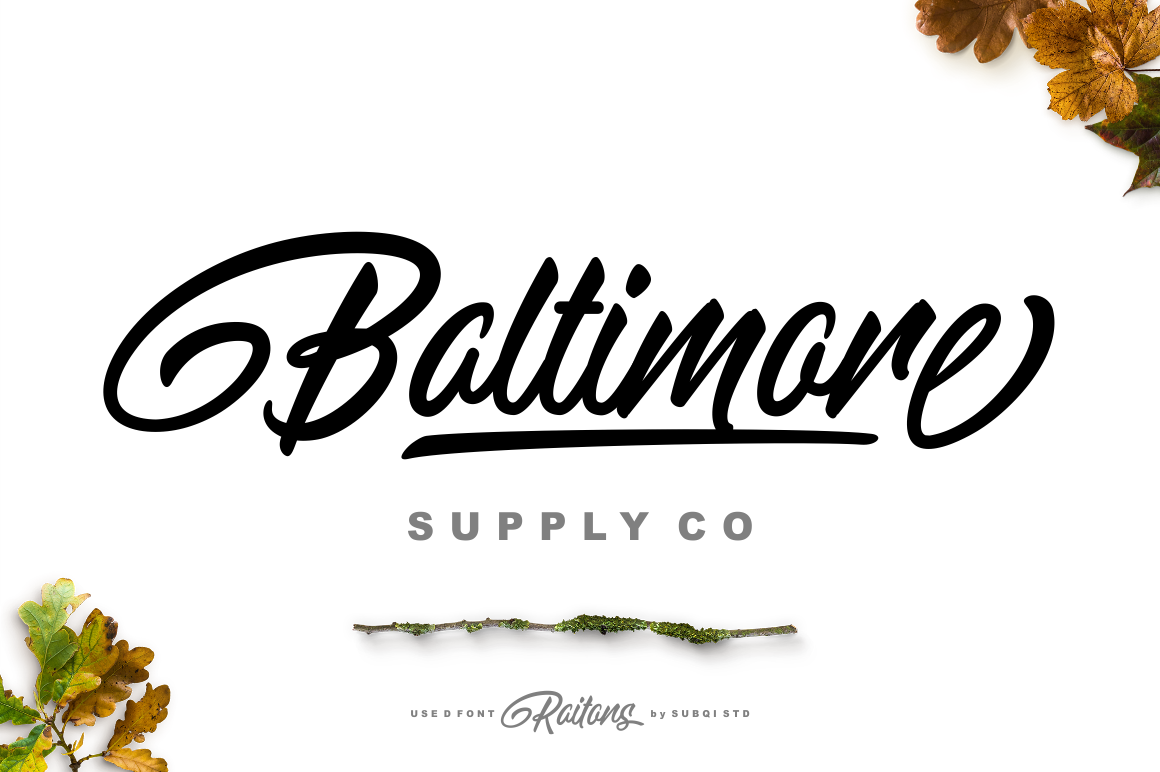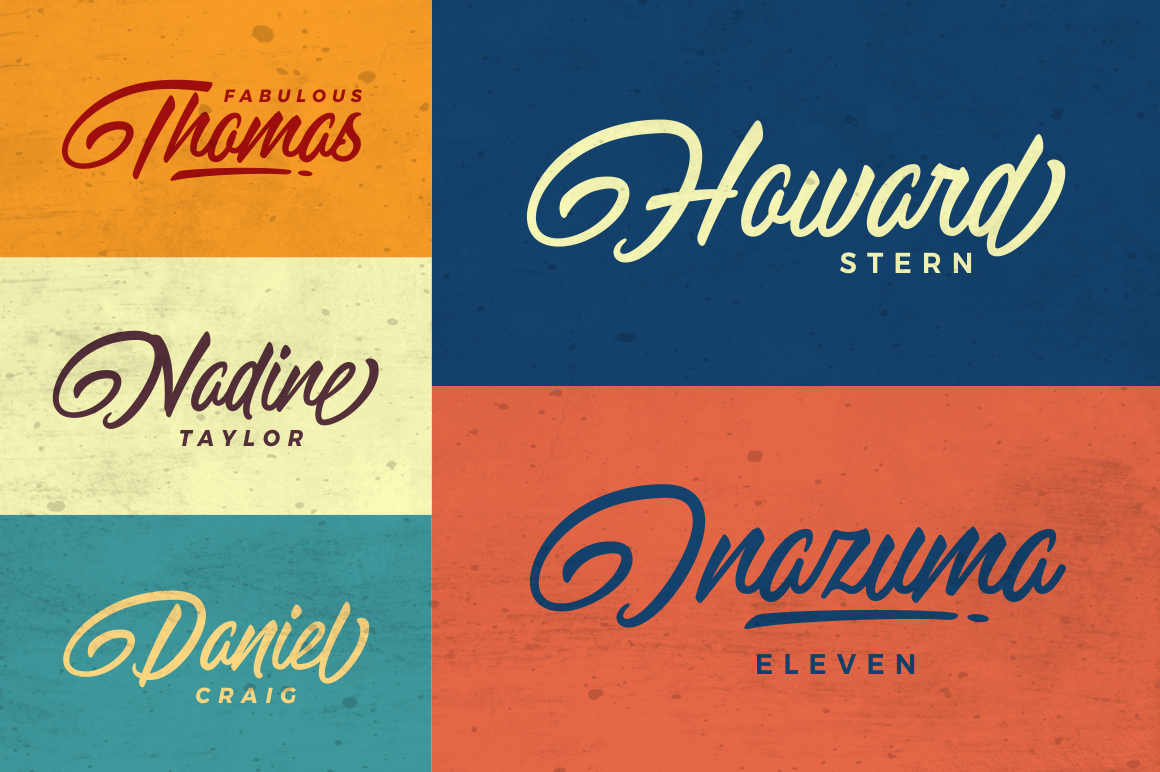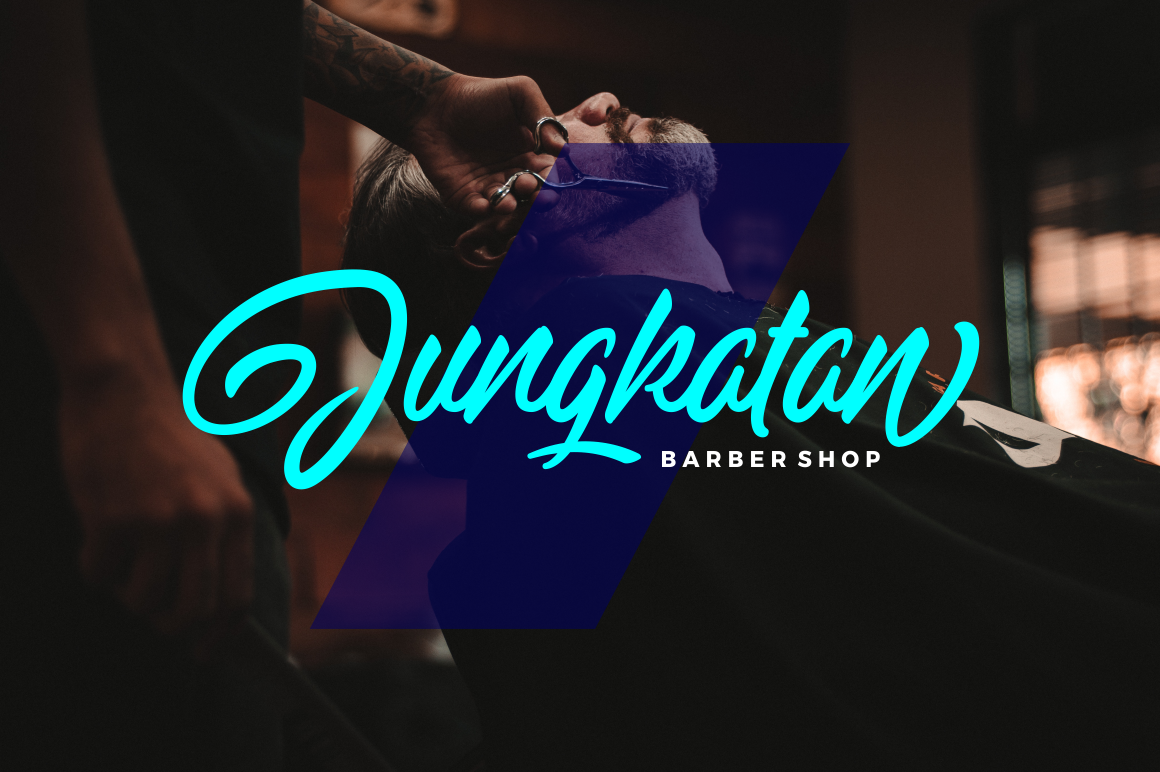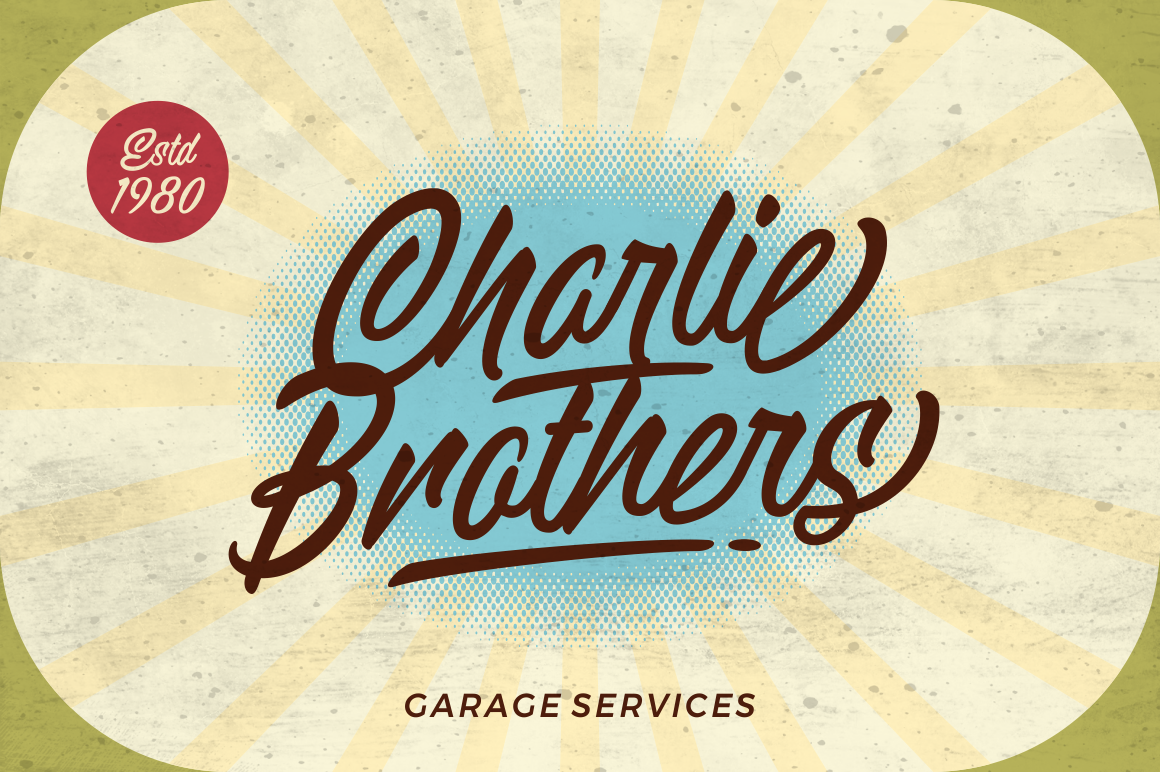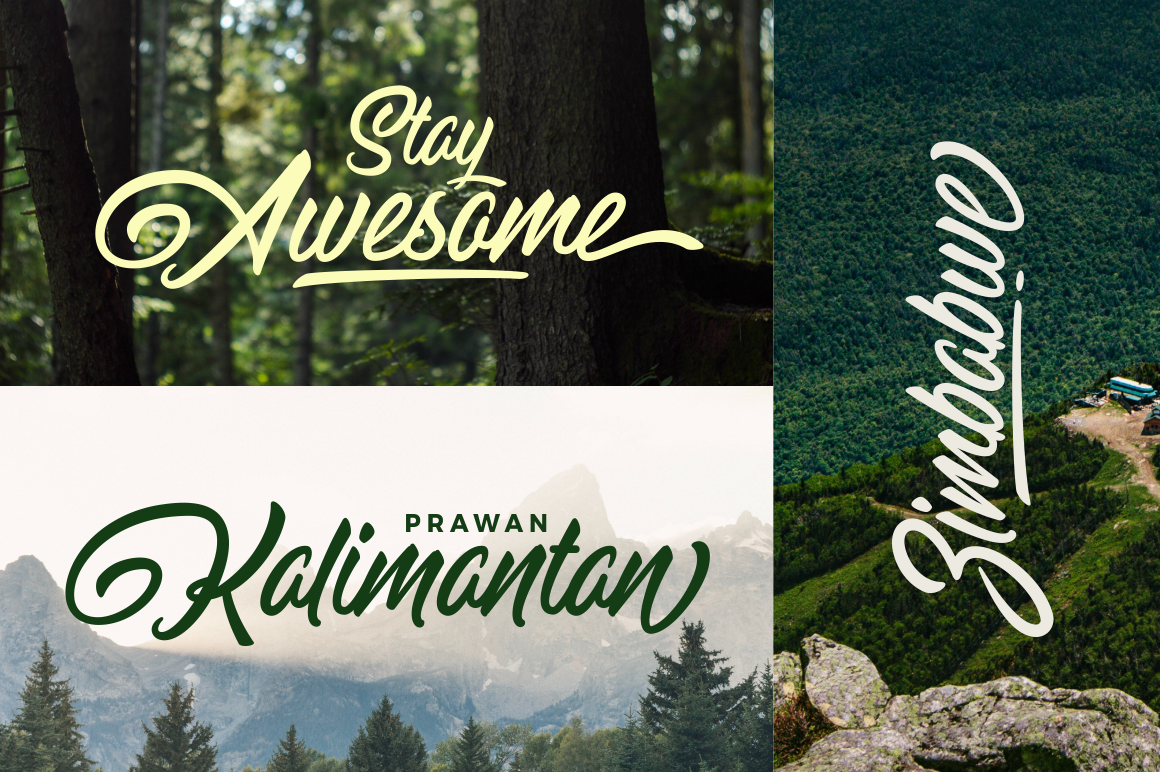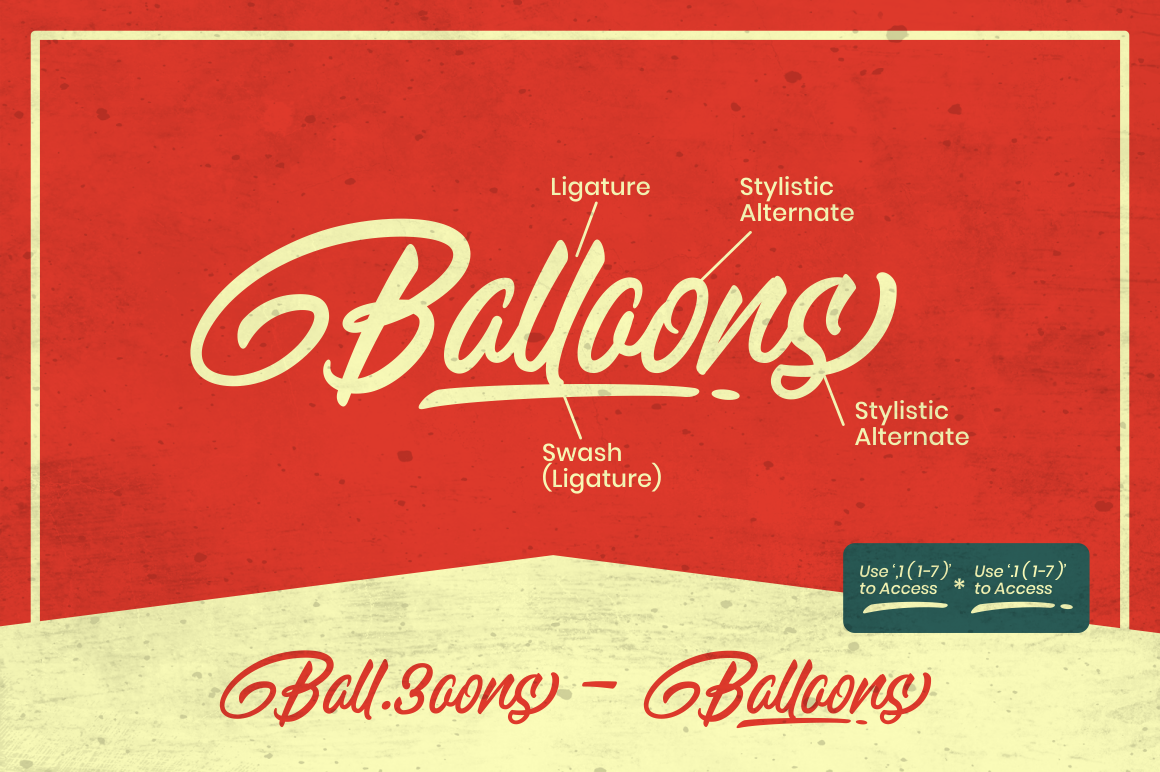
Introduction to Raitons Font
Have you ever stared at a blank canvas, feeling the weight of a creative project on your shoulders? The blank page stares back, taunting you to bring your vision to life. That’s where the right design resource can make all the difference. In the world of typography, there’s one font that stands out from the rest: Raitons Font. This high-quality display script font is a game-changer for designers looking to elevate their projects.
With Raitons Font, you can effortlessly switch between ultra-modern and classical vintage design styles. Its versatility is unmatched, making it a valuable asset for any creative project. Whether you’re working on a branding project or designing a wedding invitation, Raitons Font is sure to impress. And the best part? It’s available for a free download, making it an accessible design resource for designers of all levels.
Key Features of Raitons Font
- High-quality design resource ideal for creative projects, offering a professional and modern look.
- Transparent background, allowing for seamless integration with various design elements and backgrounds.
- Unique characteristics and stylized letterforms, setting it apart from other fonts and adding a touch of creativity to any design project.
- Perfect for use in digital and print design, including logos, typography, and other design elements.
Honest Review: Raitons Font
I recently came across the Raitons Font and was excited to give it a try in my creative project. As a designer, I’m always on the lookout for high quality design resources that can help me elevate my work.
Here are some of the things that work well with Raitons Font: ✨
- Unique and modern design aesthetic
- Works well for headings and titles
However, I did encounter a few limitations: ⚠️
- The font doesn’t include many font weights, which can limit its versatility
Overall, I think Raitons Font is a great design resource, especially for those looking for a modern and unique font. While it may not be perfect, it’s definitely worth checking out for your next creative project.
Tips for Getting the Most Out of Raitons Font
When using Raitons Font, remember to adjust the font size and style to suit your design. Experiment with different combinations to achieve the desired look for your creative project.
Raitons Font is ideal for use in logos, branding materials, and marketing materials. Its unique style and transparent background make it perfect for creating eye-catching designs that stand out from the crowd.